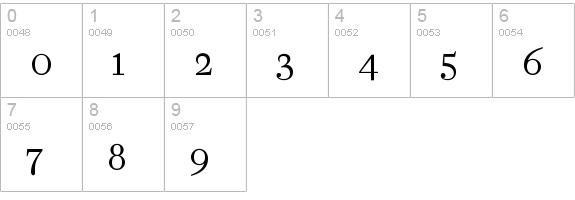
FarnhamDisplay-LightOSF Font Details
FarnhamDisplay-LightOSF font is a sophisticated and elegant typeface that exudes modernity and style. With its sleek lines and balanced proportions, this font is perfect for adding a touch of class to any design project. Whether you're creating a logo, branding materials, or a website, FarnhamDisplay-LightOSF font will make your text stand out with its timeless appeal. What's even better is that FarnhamDisplay-LightOSF font is completely free to download at FontsMarket.com. Yes, you read that right - you can elevate your designs with this high-quality font without spending a dime. So why wait? Head over to FontsMarket.com now and enhance your typography arsenal with the exquisite FarnhamDisplay-LightOSF font.